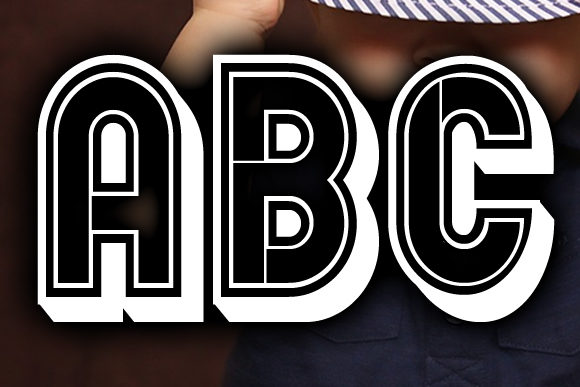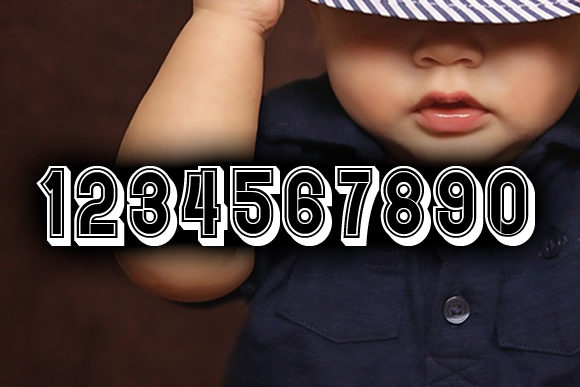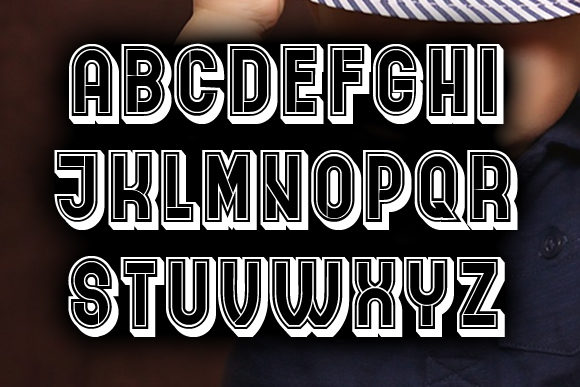
The Perfect Blend of Vintage Charm and Modern Flair
You know that moment when a single font choice can elevate your entire design project? It’s like the final puzzle piece clicking into place, and suddenly, your entire vision comes alive. For designers, finding that perfect font can be a game-changer.
Enter Andrey Font – a bold and chunky retro display font that’s sure to turn heads. With its unique blend of vintage charm and modern flair, Andrey Font is the perfect addition to any design project. Whether you’re working on a branding project, creating a social media campaign, or designing a website, Andrey Font is the perfect choice to add some personality and character.
As a designer, you know how valuable a versatile and stylish font can be. Andrey Font delivers, offering a range of styles and sizes that can be customized to fit any design need. With Andrey Font, you can create standout designs that leave a lasting impression on your audience.
Andrey Font Key Features
- Font Family: Andrey is a sans-serif font family.
- Font Styles: It comes in 7 font styles, including Light, Regular, Medium, Bold, Extra Bold, Black, and Italic.
- Character Set: Supports a wide range of languages, including Latin, Cyrillic, Greek, and many others.
- Size: Each font style has a specific size, ranging from 14 to 96 points, with a minimum size of 6 points for the Light style.
- Resolution: Optimized for use at high resolutions, up to 300 DPI, making it suitable for print and digital media.
- Unique Characteristics: Andrey features a clean and modern design, with a subtle rounded edge, making it perfect for corporate, editorial, and advertising projects.
Andrey Font Review
Overall, I found Andrey Font to be a solid addition to any typography collection. It has a unique, modern feel that can work well in various design contexts.
- Andrey Font has a clean and minimalist aesthetic, making it a great choice for digital products and modern branding.
- The font’s x-height is well-balanced, ensuring readability even at smaller font sizes.
- The font supports a wide range of languages, including Cyrillic and Latin scripts.
- Andrey Font is available in various weights, from light to bold, offering flexibility for different design needs.
- The font may not be suitable for traditional or formal designs, as its modern feel can come across as too trendy.
- Some users may find the font’s ascenders and descenders too angular, which can affect readability in certain contexts.
Overall, Andrey Font is a great choice for designers looking for a modern, versatile font. While it may not be suitable for every project, its unique aesthetic and wide language support make it a valuable addition to any typography collection.
For best results, use Andrey Font for titles and headings, as it’s a highly legible font.
For best results, use Andrey Font for body text, as it’s highly readable.
For best results, use Andrey Font consistently throughout your document to create a cohesive look.
Andrey Font is perfect for:
- Designing brochures, flyers, and posters.
- Creating business cards and letterheads.
- Writing blog posts and articles.
Remember to adjust the font size and style according to your design needs.
Montserrat is a sans-serif font designed by Julieta Ulanovsky. It is inspired by urban typography and is optimized for digital use. Montserrat is a great choice for designers who want a font that is modern, yet timeless. Compared to Andrey Font, Montserrat is more condensed and has a stronger geometric feel.